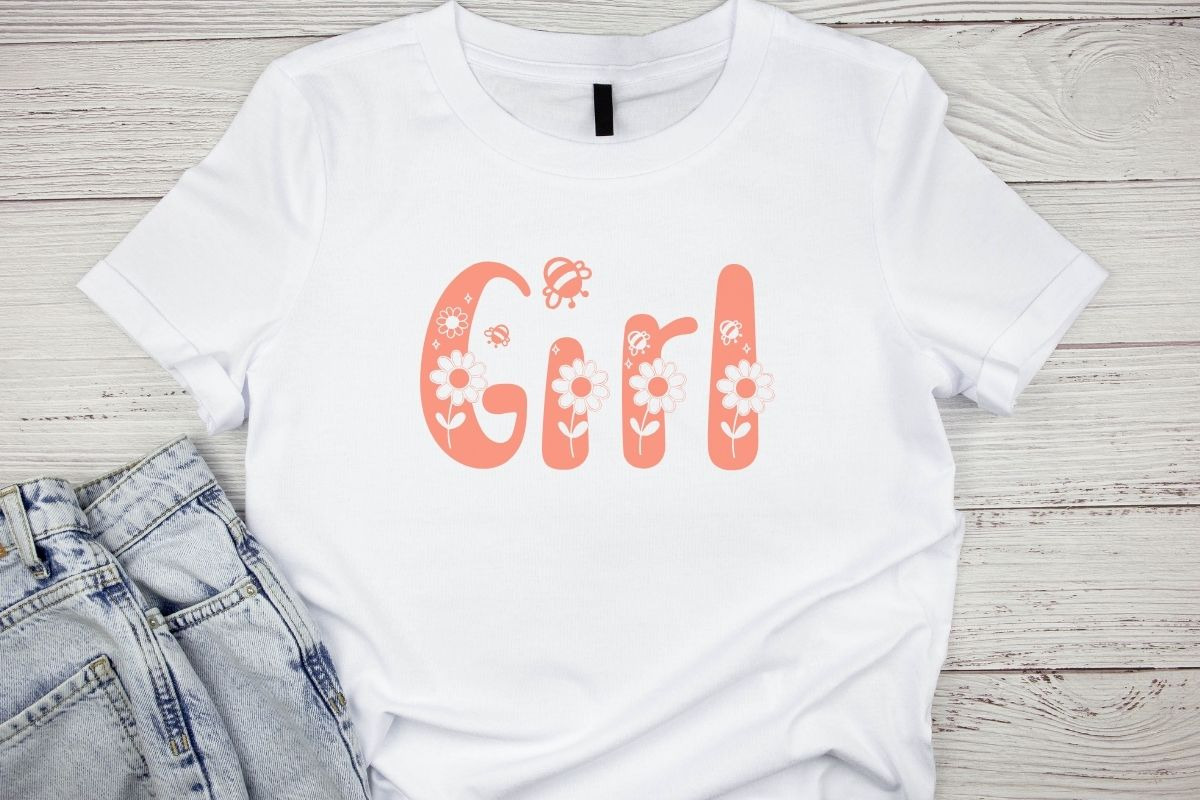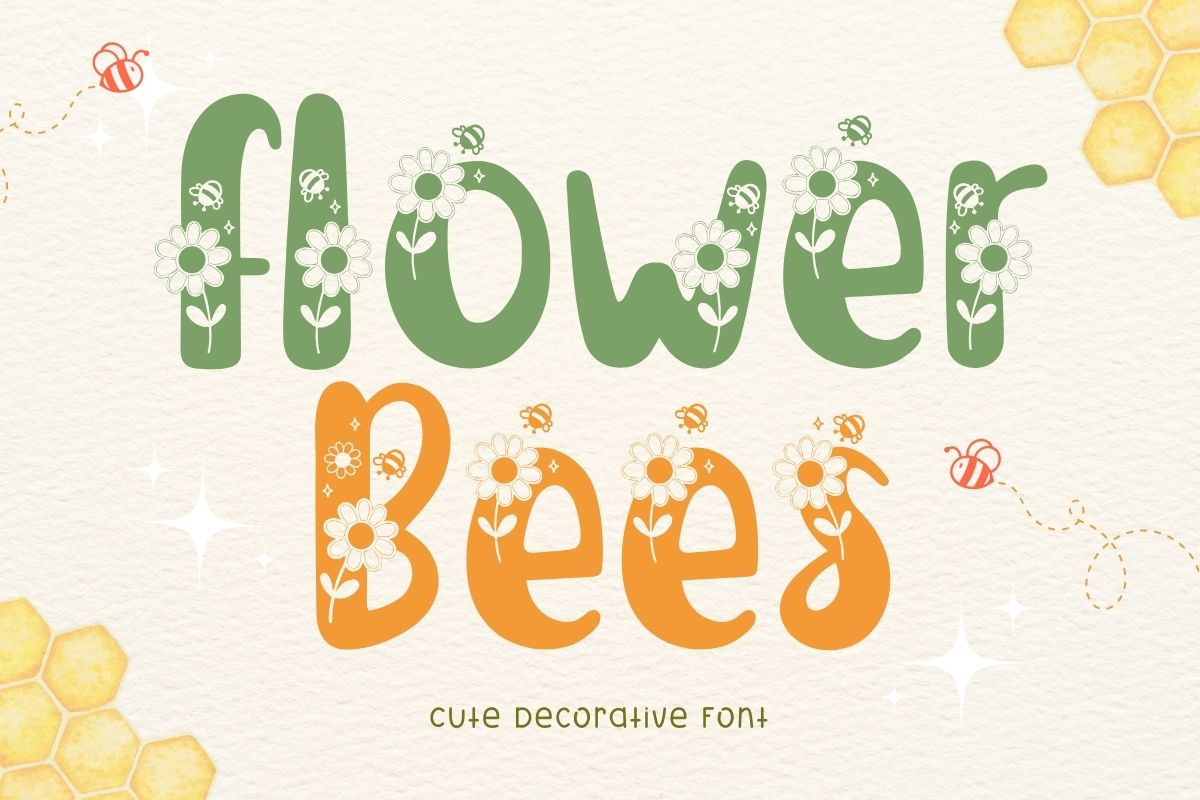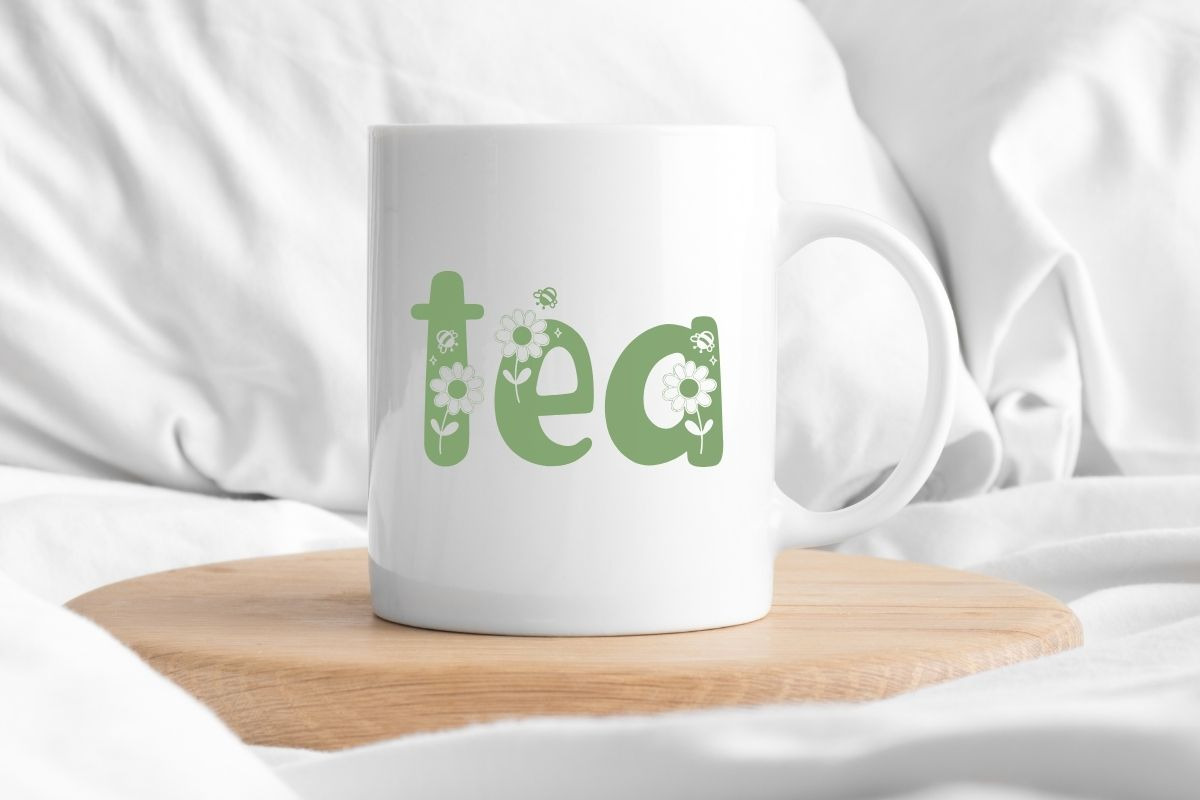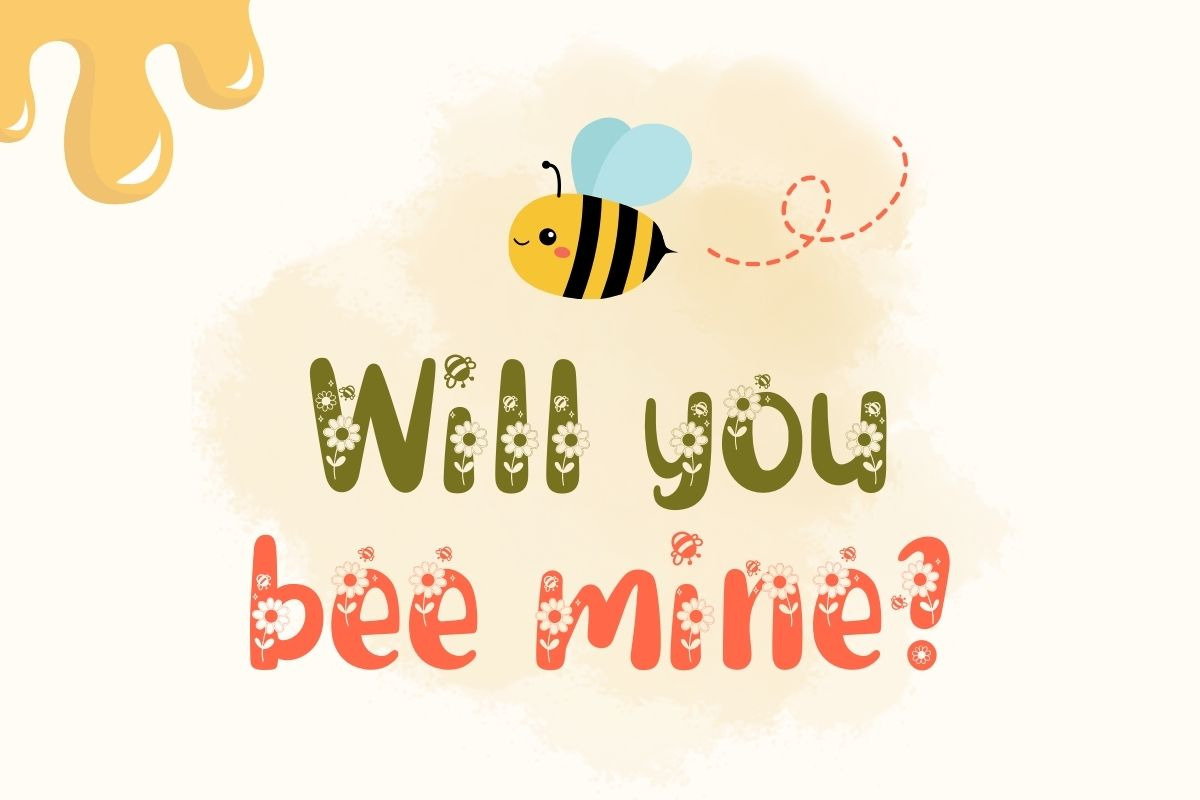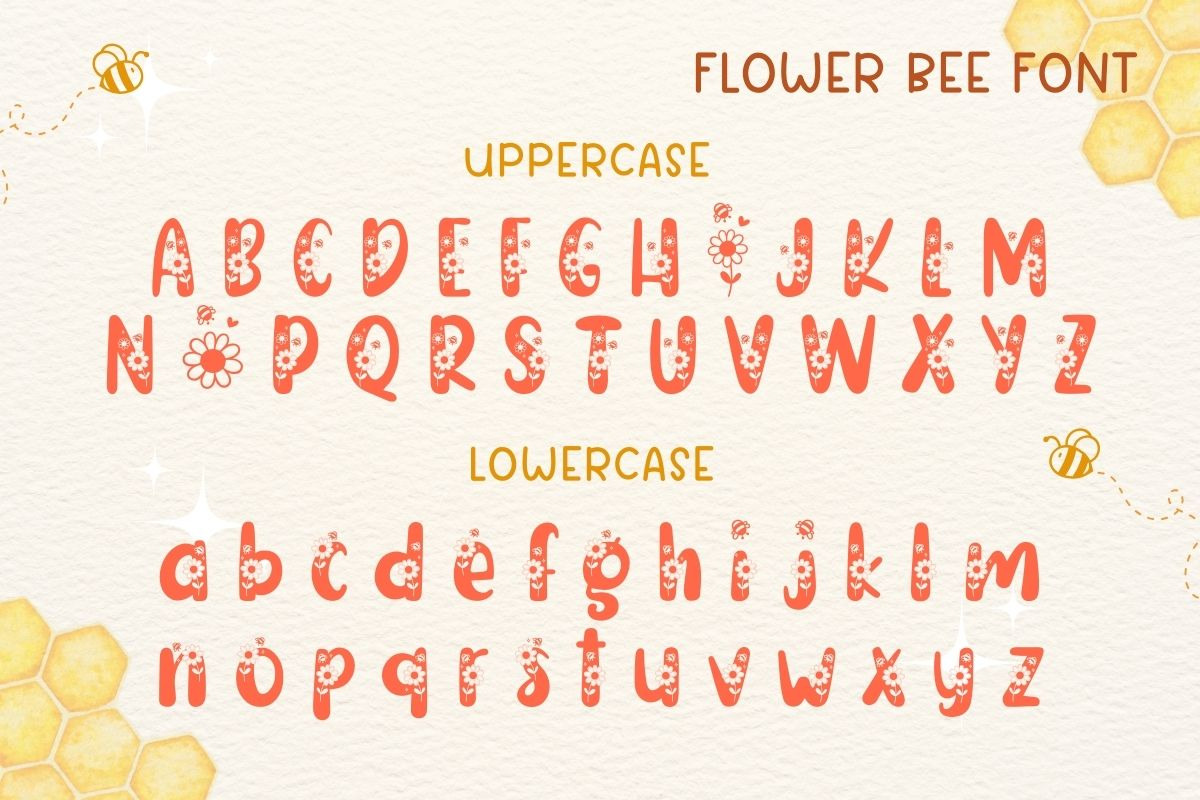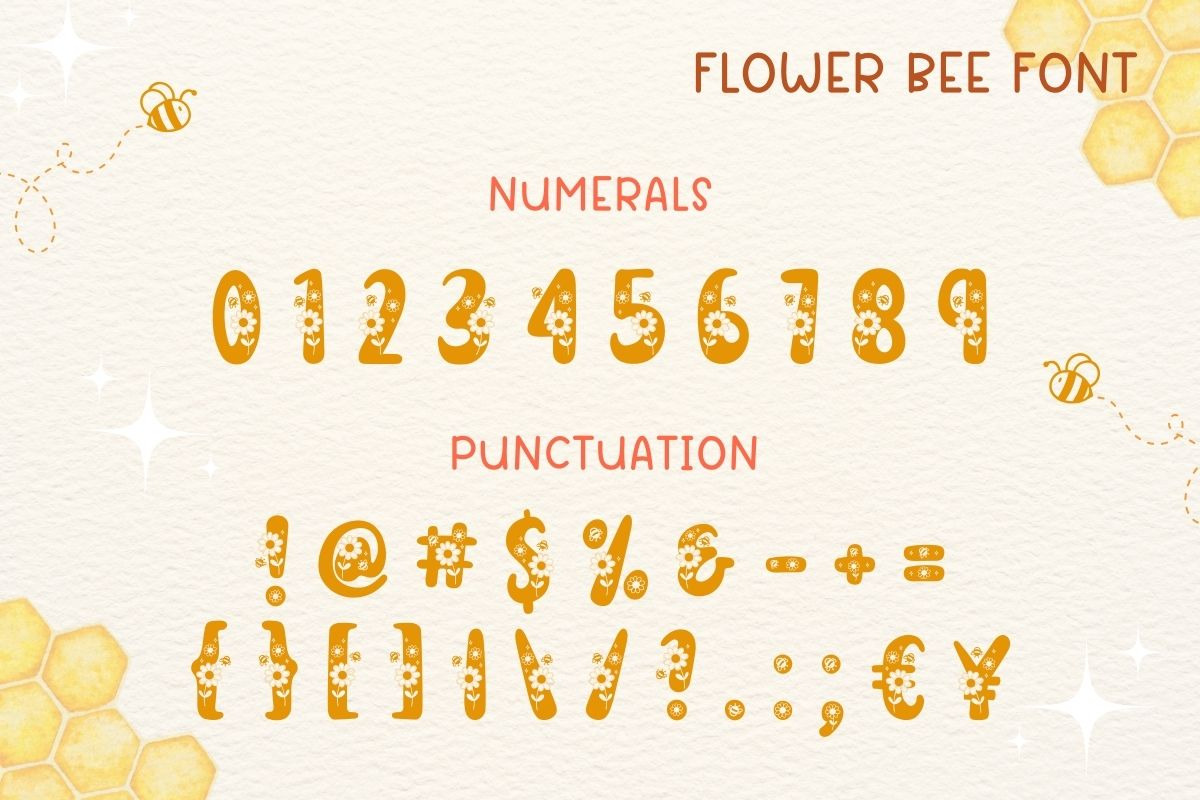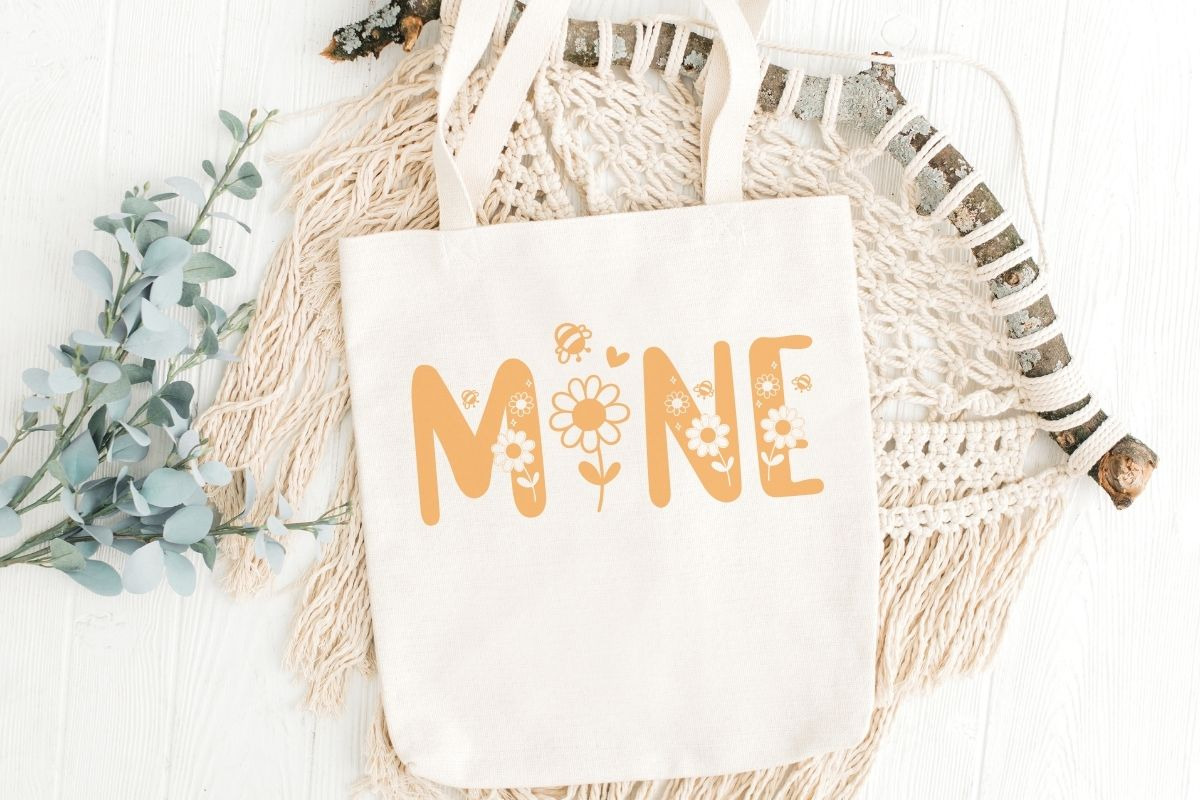
Flower Bees - Cute Display Font
Flower Bees is a cute decorative font. This font uses flower and bee elements silhouettes combined with handwritten fonts. This font has a quirky style. Perfect for creating a wide variety of new designs to match products such as banners, content, mugs, cards, shirts, stationery, social media posts, and more!